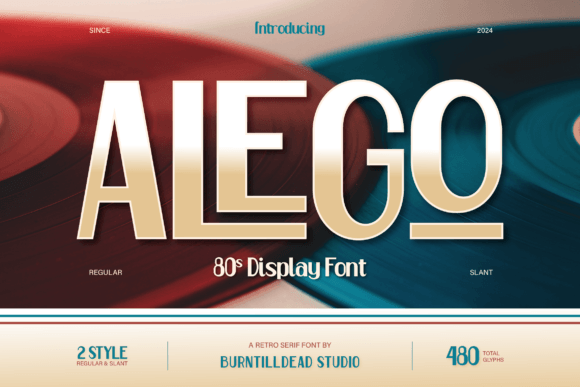
Alego Font: A Timeless Display Retro Font with Delightful Sans Serif Motifs
In the world of typography, fonts play a crucial role in conveying the tone and aesthetic of a brand or design. With the ever-evolving landscape of graphic design, it’s essential to stay ahead of the curve with fresh and exciting fonts that capture the essence of a bygone era. Introducing Alego, a display retro font that embodies the perfect blend of bold, simple, minimalist, and nostalgic elements. In this article, we’ll dive into the world of Alego Font, exploring its characteristics, uses, and benefits.
Characteristics of Alego Font
Alego Font is a sans serif font that boasts a unique blend of retro charm and modern simplicity. Its bold and minimalist design makes it perfect for creating eye-catching headlines, logos, posters, and any design that needs a sense of nostalgia and timeless style. The font’s clean lines, simple shapes, and classic proportions evoke a sense of nostalgia, reminiscent of the golden age of graphic design.
- Bold and Simple: Alego Font features bold and simple letterforms that command attention and make a lasting impression.
- Minimalist Elements: The font’s minimalist design ensures that it’s easy to read and versatile enough to be used in various design applications.
- Nostalgic Feel: Alego Font’s retro charm is perfect for designs that require a touch of nostalgia and classic style.
Uses of Alego Font
Alego Font is an incredibly versatile font that can be used in a wide range of design applications. Here are some of the most popular uses of Alego Font:
- Headlines and Titles: Alego Font is perfect for creating bold and eye-catching headlines, titles, and taglines.
- Logos and Branding: The font’s unique blend of retro charm and modern simplicity makes it an excellent choice for logos and branding materials.
- Posters and Flyers: Alego Font is ideal for creating posters, flyers, and other print materials that require a bold and attention-grabbing design.
- Digital Designs: The font is also suitable for digital designs, including social media graphics, website headers, and email marketing campaigns.
Benefits of Using Alego Font
Alego Font offers a range of benefits that make it an excellent choice for designers and brands. Here are some of the most significant advantages of using Alego Font:
- Unique and Memorable: Alego Font’s bold and nostalgic design ensures that your designs stand out and leave a lasting impression.
- Versatile: The font’s simplicity and elegance make it suitable for a wide range of design applications.
- Easy to Read: Alego Font’s clean lines and simple shapes ensure that it’s easy to read, even at small sizes.
- Timeless Style: The font’s classic proportions and nostalgic feel ensure that it will remain stylish and relevant for years to come.
Pairing Alego Font with Other Fonts
Pairing Alego Font with other fonts can create a unique and visually appealing design. Here are some font pairing suggestions:
- Serif Fonts: Pair Alego Font with serif fonts, such as Georgia or Times New Roman, to create a striking contrast between bold and elegant.
- Script Fonts: Combine Alego Font with script fonts, such as Pacifico or Great Vibes, to add a touch of elegance and sophistication.
- Display Fonts: Pair Alego Font with other display fonts, such as bold sans serif fonts, to create a bold and eye-catching design.
Alego Font is a timeless display retro font that embodies the perfect blend of bold, simple, minimalist, and nostalgic elements. Its versatility, unique design, and ease of use make it an excellent choice for designers and brands looking to create eye-catching headlines, logos, posters, and other design materials. With Alego Font, you can add a touch of nostalgia and classic style to your designs, ensuring that they stand out and leave a lasting impression.